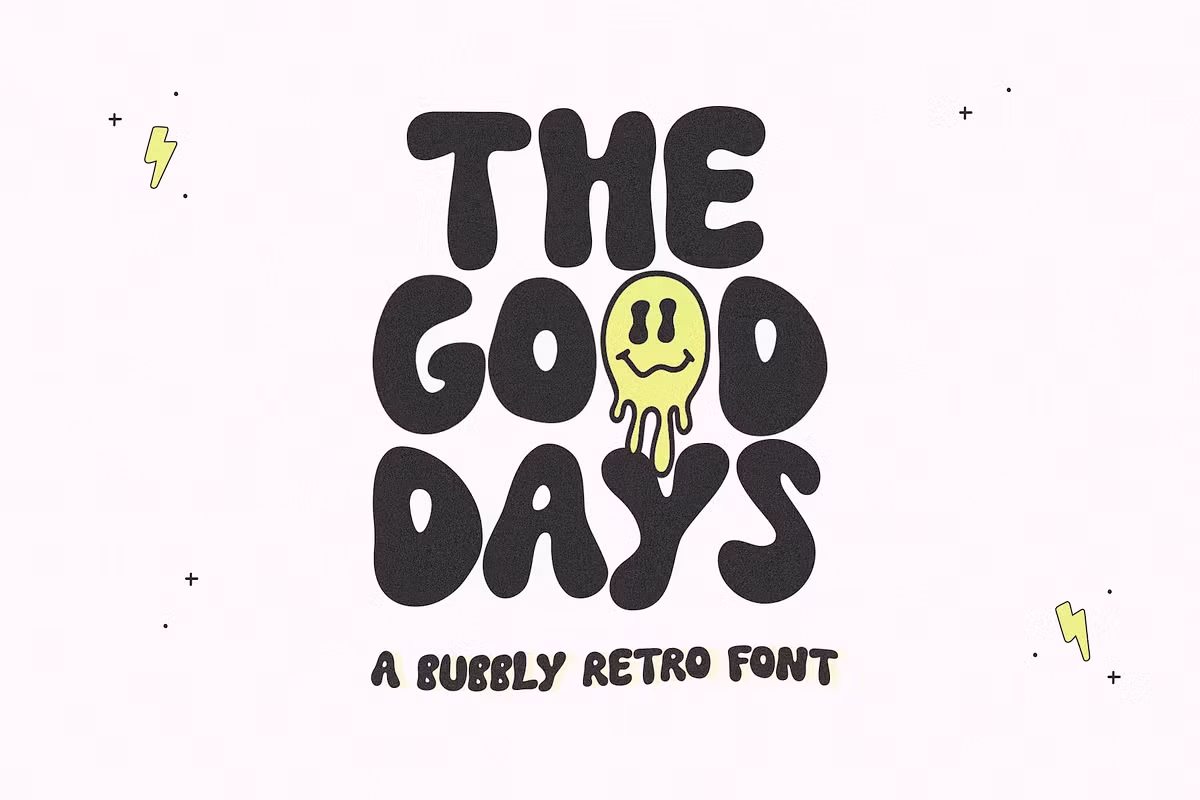
Please note, you must purchase this font for commercial use. However, you can easily download The Good Days | Retro Font Free Download for personal use and testing purposes. The Good Days | Retro Font is a vibrant, nostalgic typeface that captures the essence of vintage design. Perfect for creating retro-style posters, logos, advertisements, and more, this font adds a fun and dynamic touch to any project. With its bold curves and playful style, The Good Days | Retro Font Free Download is ideal for designs that require a burst of personality and a throwback to the past. Whether you’re working on a 70s-inspired branding project, a music festival poster, or retro-themed invitations, this font will infuse your designs with warmth and charm. Download The Good Days | Retro Font Free Download today and experience its unique flair before opting for a commercial license.